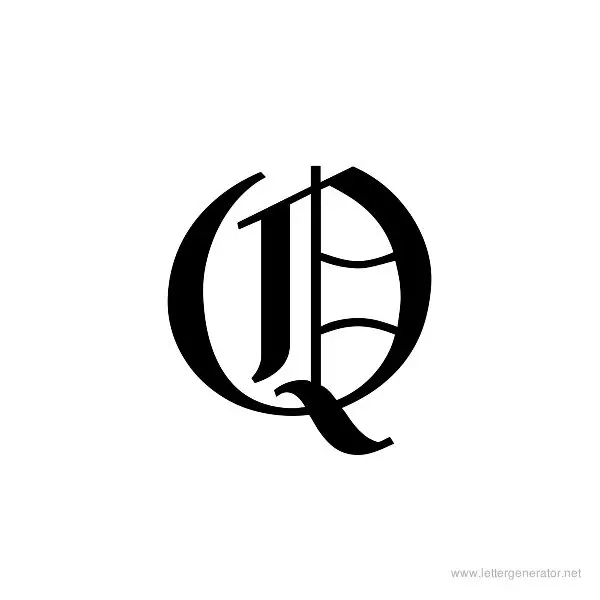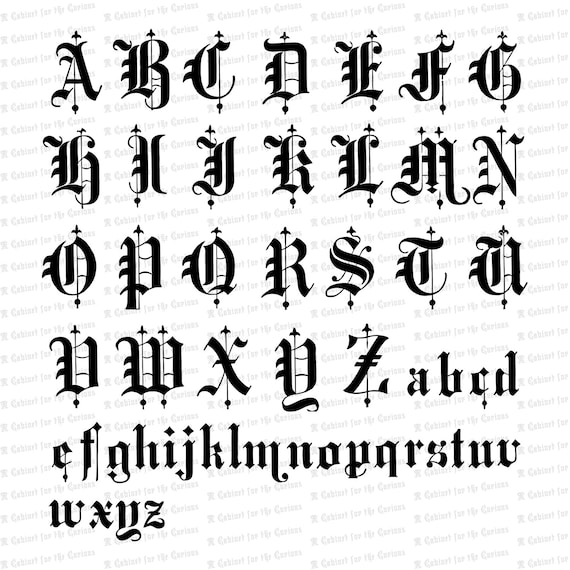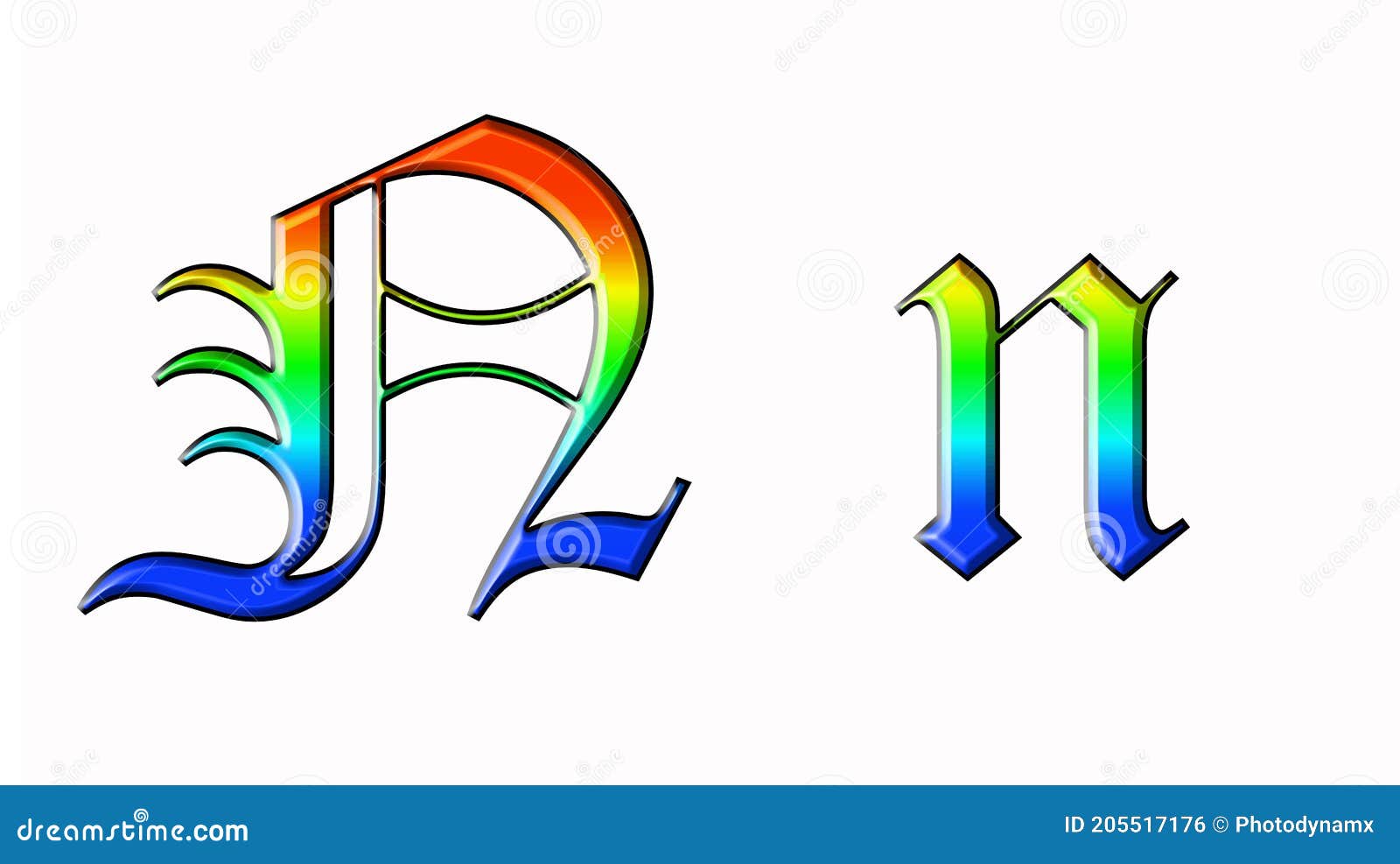
Old English Alphabet Calligraphy - Letter English gothic font english gothic font alphabet e alphabet f alphabet g alphabet h. Blackstone Dolbey Germania Caxton Initials Munich Fraktur and 95 more with many lowercases numerals and punctuation marks.
Alphabet calligraphy old english font. Printable Old English calligraphy is also available for download as a single template file. Every font is free to download. Old English Font The Old English script makes your designs look like they are from the Middle Ages.
The English Calligraphy style is very artistic with smooth rounded curves which is symbolic of old style English Calligraphy. Click to find the best 30 free fonts in the Old English Calligraphy style. 720x1280 - Old english download free calligraphy fonts old english wallpapers alphabet.
Old English Gothic type letter stencils to print which are created in an Old English theme typeface. These Old English alphabet stencils are excellent for many projects. But dont let the rythmic flourishes and old-world elegance of such lettering fool you.
Number of calligraphy alphabets. Free printable Old English style alphabet stencils. Heres the alphabet for the old english letters.
It is also known as Blackletter or medieval calligraphy. This is also known as Anglo-Saxon calligraphy which was used from the middle of the 5th to the beginning of the 12th century. We Have got 26 pic about Calligraphy Alphabet Letters Cursive Fancy S images photos pictures backgrounds and more.
Blackletters Calligraphy Gothic Calligraphy letters A to Z Old English HandwritingHow to write Gothic Calligraphy letters alphabets Old English Fonts. Suitable for many types of projects and scrapbooking activities. Artistic Decorative Elegant Marriage Ornamental Black-letter Gothic and Old English.
Contains all 26 alphabets Download Old English Calligraphy Alphabet A to Z. Go to English Calligraphy Alphabet Styles from A to L Cursive Calligraphy Alphabet Styles from A to L. This set of calligraphy is associated with the following terms.
Print this Old English themed PDF formated Calligraphy chart below. This chart contains 26 A to Z alphabet letters to print in PDF. The English Calligraphy is probably the most common Calligraphy style most Calligraphy enthusiasts seek.
About Old English Fonts The Old English also known as blackletter dates back to 1000 years ago when it was used as a script throughout Western Europe. May 24 2015 - Explore Jose Jimenezs board Calligraphy fonts and old English alphabets on Pinterest. It should be noted that Old English or blackletter has nothing to do with old English language nor the old English language written with blackletter.